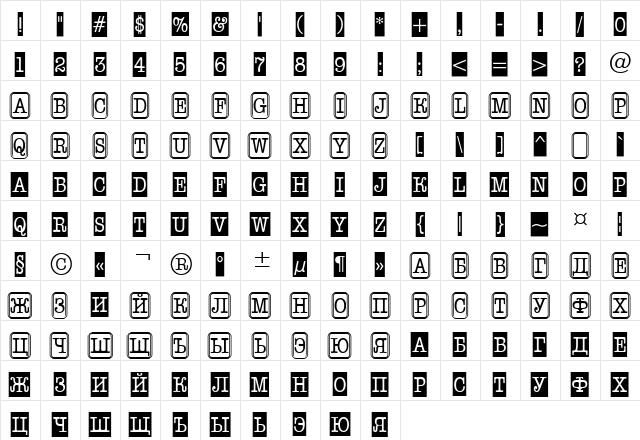
a_OldTyperNrCmCmb2 Regular Font Preview
a_OldTyperNrCmCmb2 Regular
a_OldTyperNrCmCmb2 Regular Font Details
Design Context for a_OldTyperNrCmCmb2 Typeface
a_OldTyperNrCmCmb2 is a composed and adaptable typeface that performs quietly and consistently across a wide range of design contexts.